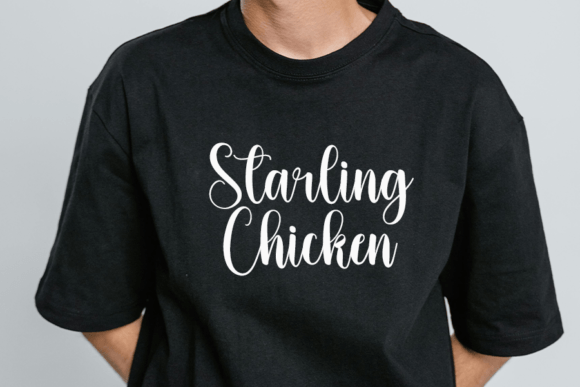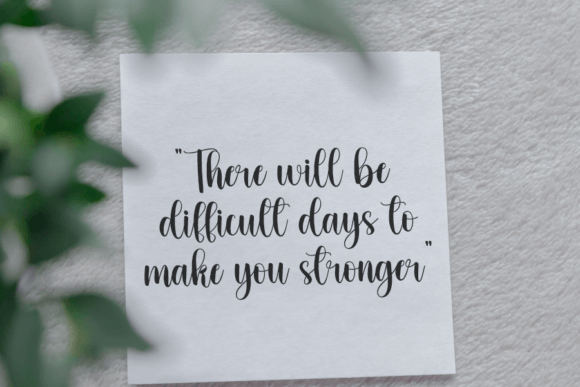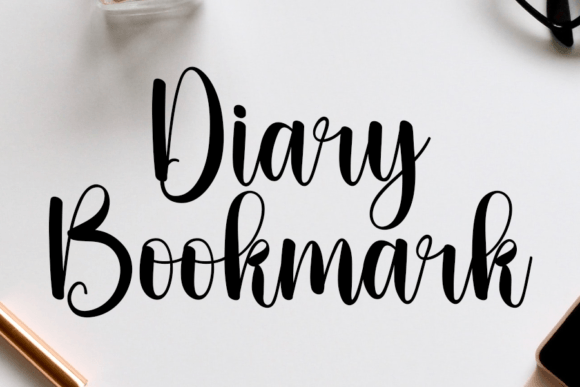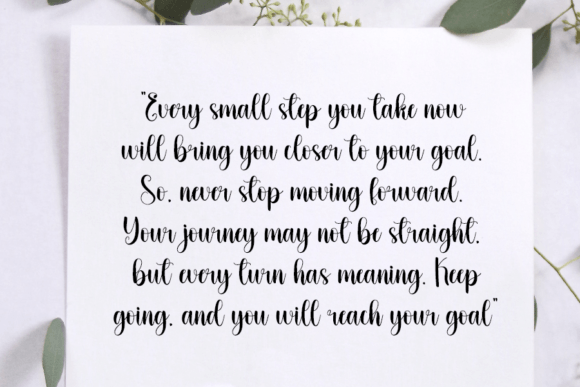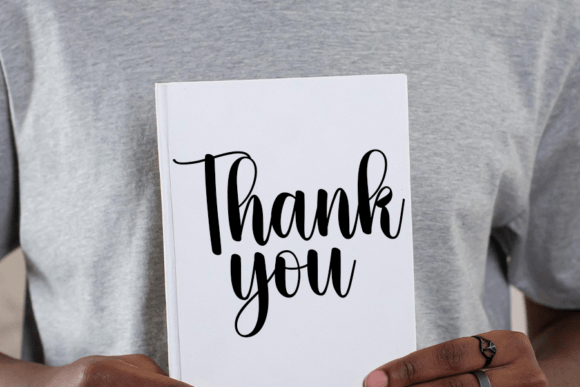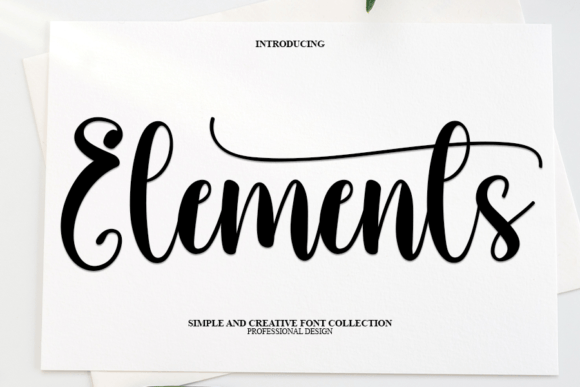
Introducing Elements Font: A Delicate Handwritten Style for Unique Designs
In the world of typography, a well-crafted font can elevate a design from ordinary to extraordinary. For designers and crafters seeking a cool and unique aesthetic, Elements Font is an excellent choice. This delicate handwritten font is carefully crafted to add a touch of elegance and sophistication to various design projects.
What is Elements Font?
Elements Font is a beautiful, handwritten typeface designed to bring a sense of refinement and style to your creations. Its delicate strokes and carefully crafted letterforms make it perfect for a variety of applications, including:
• Writing letters and invitations
• Designing food product labels and packaging
• Crafting titles and headings for blogs, magazines, and websites
• Creating unique social media graphics and posts
Key Features of Elements Font
So, what sets Elements Font apart from other typefaces? Here are some of its key features:
• Delicate and elegant: Elements Font boasts a slender, cursive style that exudes sophistication and refinement.
• Handwritten with care: Each letterform is carefully crafted to ensure a personal, human touch.
• Versatile: Use it for a wide range of design projects, from formal invitations to casual social media graphics.
• Easy to read: Despite its delicate nature, Elements Font remains highly legible, making it perfect for body text and headings.
How to Use Elements Font in Your Designs
• Pair it with bold fonts: Combine Elements Font with a bold, contrasting typeface to create visual interest and hierarchy.
• Experiment with colors: Try pairing Elements Font with a range of colors to add depth and emotion to your designs.
• Use it for titles and headings: Elements Font is perfect for creating eye-catching titles and headings that draw attention.
• Add a personal touch: Use Elements Font to add a handwritten, personal element to your designs, making them more relatable and engaging.
Why Choose Elements Font?
• Unique and distinctive: Elements Font offers a fresh, unique aesthetic that will set your designs apart.
• High-quality design: Each letterform is carefully crafted to ensure a high level of quality and attention to detail.
• Time-saving: With Elements Font, you can quickly and easily create professional-looking designs without spending hours on typography.
In conclusion, Elements Font is a beautiful, delicate handwritten typeface perfect for designers and crafters seeking a cool and unique aesthetic. With its elegant letterforms, versatility, and ease of use, Elements Font is an excellent choice for a wide range of design projects. Whether you’re creating invitations, food product labels, or social media graphics, this font is sure to elevate your designs and add a touch of sophistication.